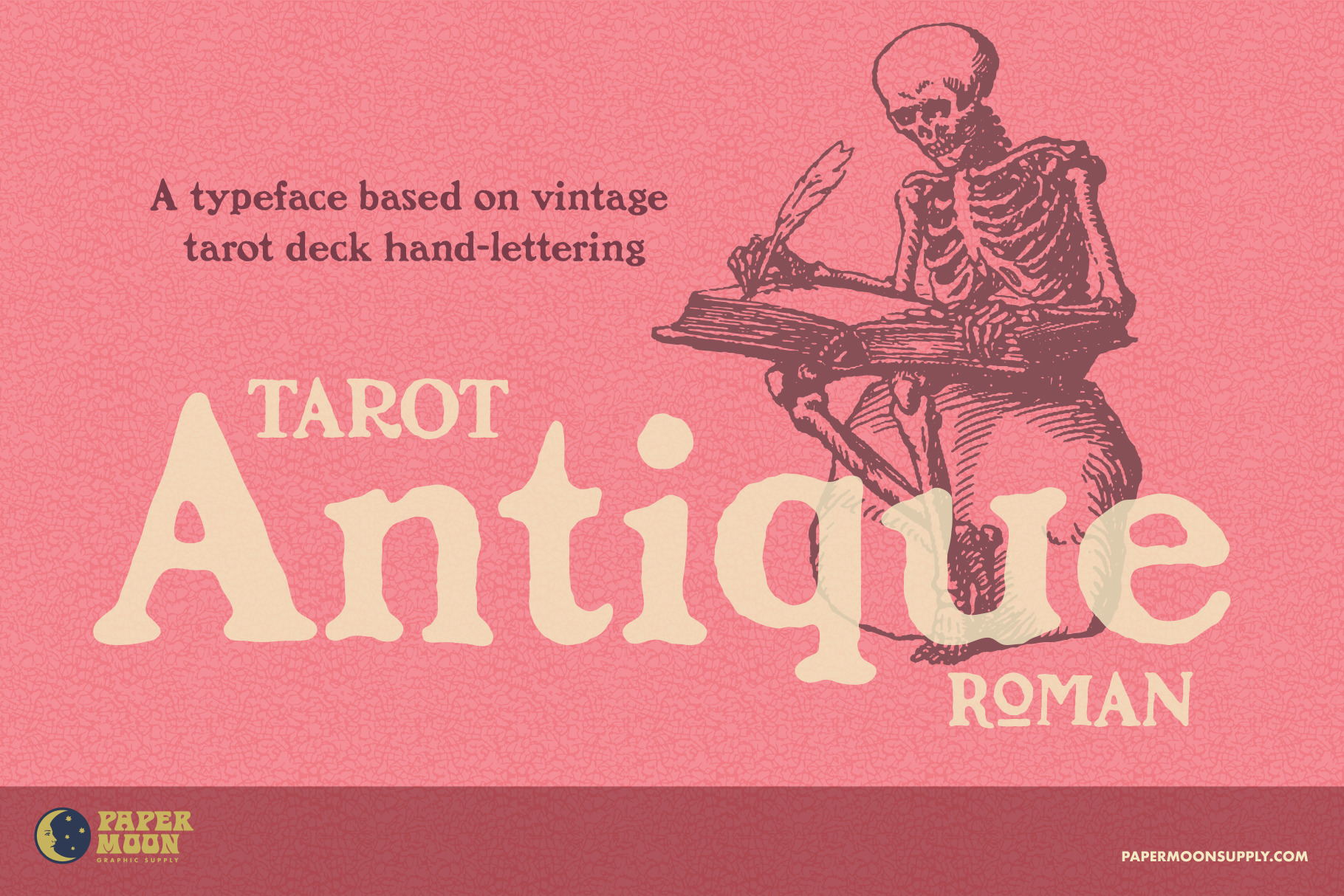
PM Tarot Antique Serif Font
A new font based on vintage tarot card hand-lettering.
The PM Tarot typeface series began as a small personal project of digitizing the hand-lettering of the Rider-Waite Tarot. But over a six-month period in 2023, it expanded to 5 unique typefaces with many style variations.
With all the typefaces in the PM Tarot series, we've stayed true to the quirkiness and unique structure of the original lettering by including hundreds of alternate characters and ligatures. Even the clean, modern versions of the typefaces in the series maintain unique variations found in the original hand-lettering that deviate from standard type classifications.
PM Tarot Antique letterforms are based on hand-lettering and the movable type used on early printing presses. These styles were often used in tarot decks dating back as far as medieval times.
- Over 250 glyphs, including alternate characters
- Highly-detailed “rough” letterpress printed-style edges to match our vintage-style clip art
- Clean version for modern designs
PM Tarot Antique was created by award-winning illustrator and designer Scott Banks. Until now, this font was part of Scott’s personal collection of design resources. Now you can get this typeface for your personal arsenal.